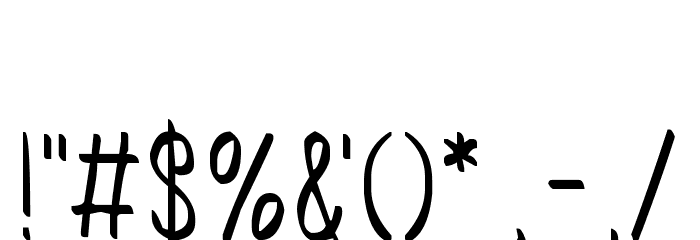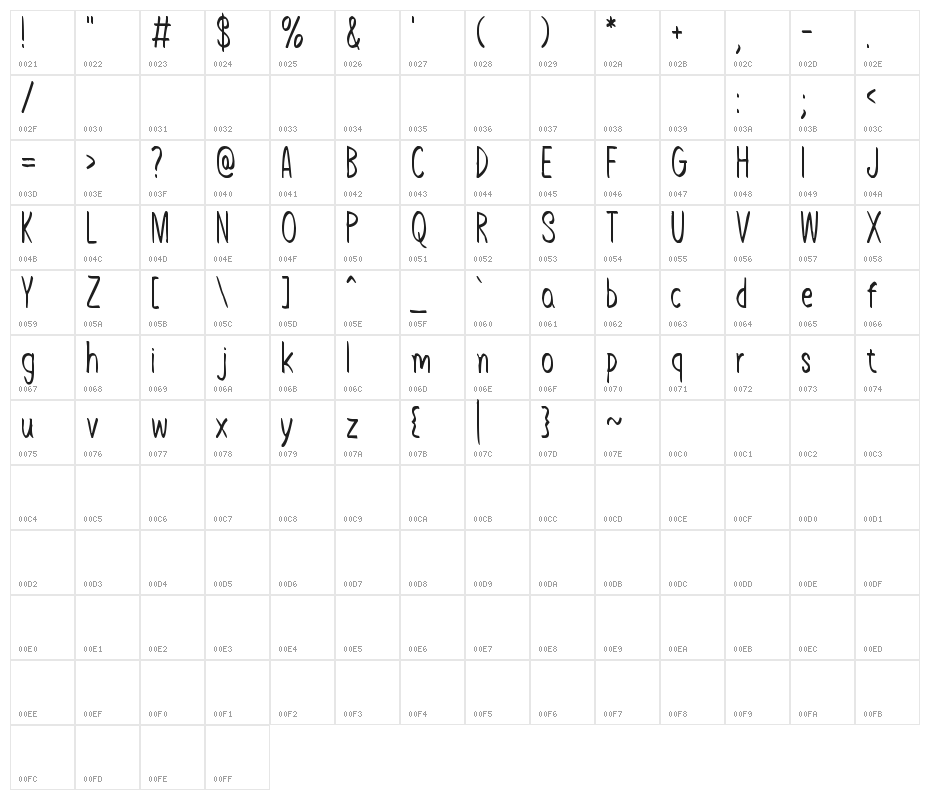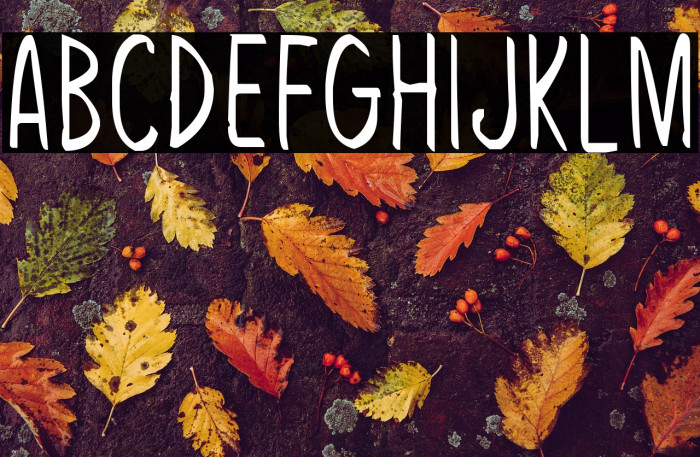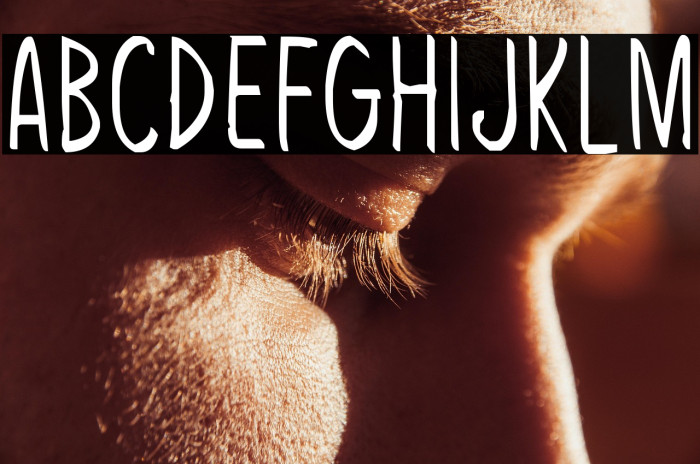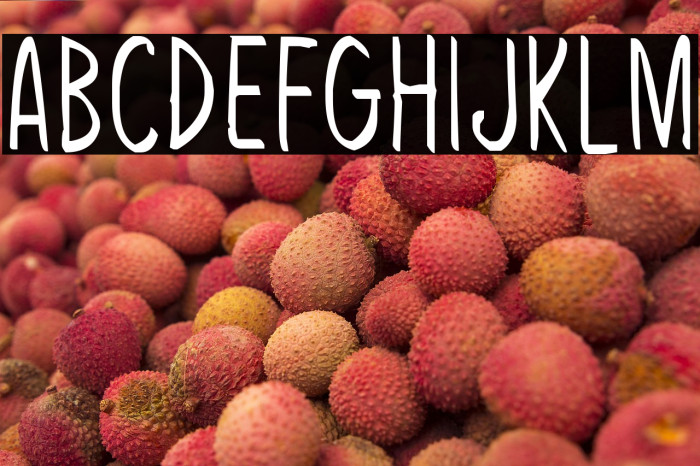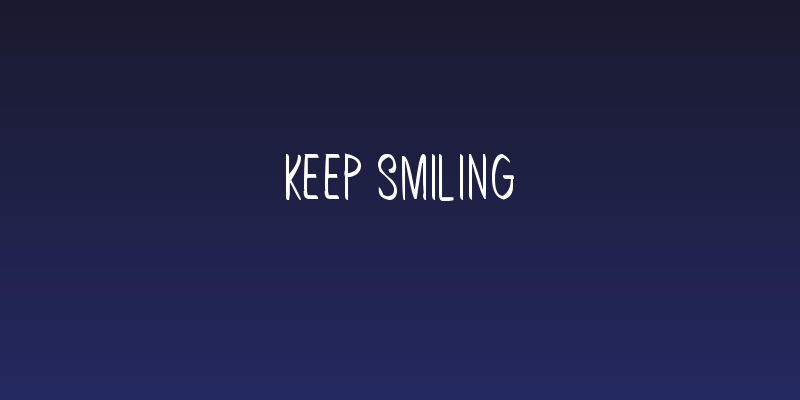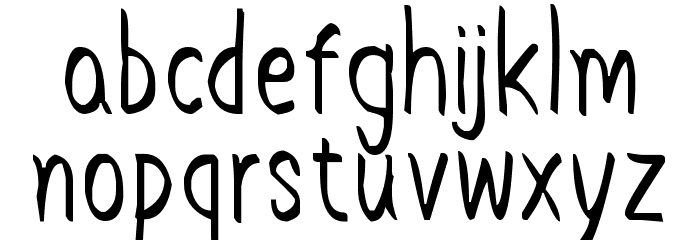
Keep Smiling Font
Keep Smiling Description
This playful and whimsical font features a hand-drawn style with uneven lines and a casual appearance. The characters are slightly irregular, giving it a friendly and approachable feel. The uppercase letters are tall and narrow, while the lowercase letters maintain a consistent height, adding to the font's quirky charm. The numerals and special characters follow the same playful design, making it suitable for creative projects. The overall style is informal and fun, perfect for adding a touch of personality to any design.
Proposed ProjectsIdeal for children's books, greeting cards, playful branding, and creative posters.